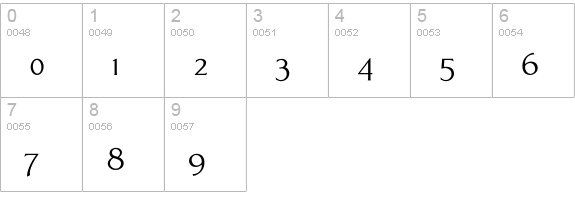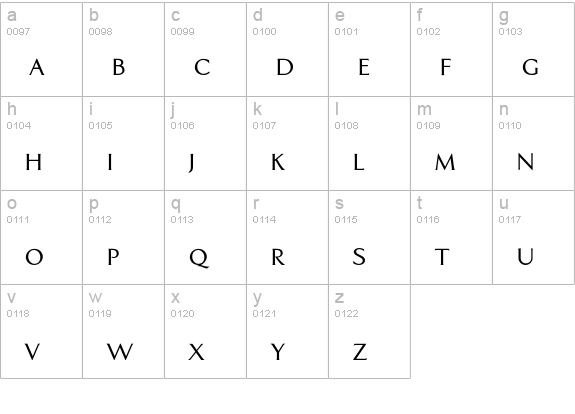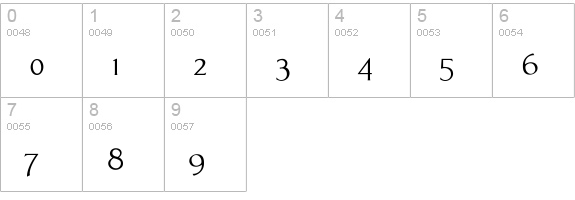
Aperto SCOsF font is a modern and elegant typeface that exudes sophistication and readability. With its clean lines and sleek design, this font is perfect for a wide range of design projects, from branding to editorial layouts. The versatility of Aperto SCOsF makes it a go-to choice for designers looking to create a polished and professional look. One of the best things about Aperto SCOsF font is that it is available for free download at FontsMarket.com. This means you can easily access this high-quality font without any cost, making it a valuable addition to your font collection. Whether you're working on a personal project or a client's design, Aperto SCOsF font is sure to elevate your work and leave a lasting impression. Download it today and experience the beauty and versatility of this exceptional font for yourself.